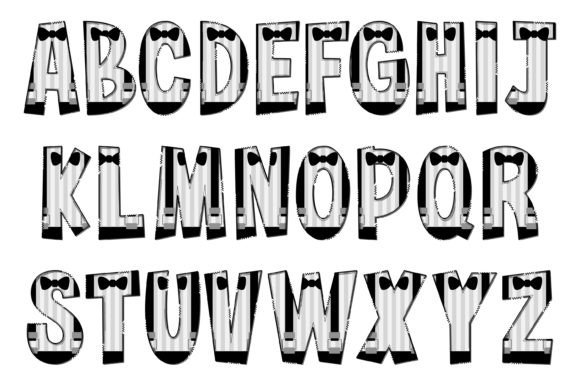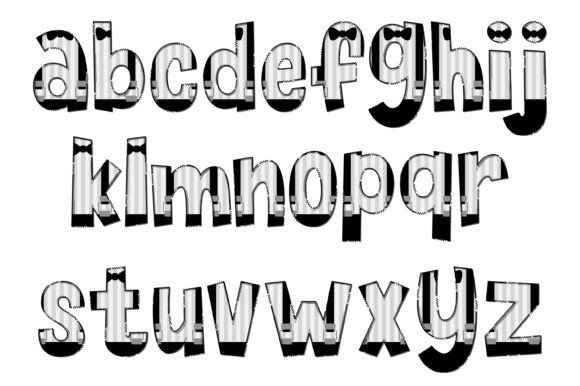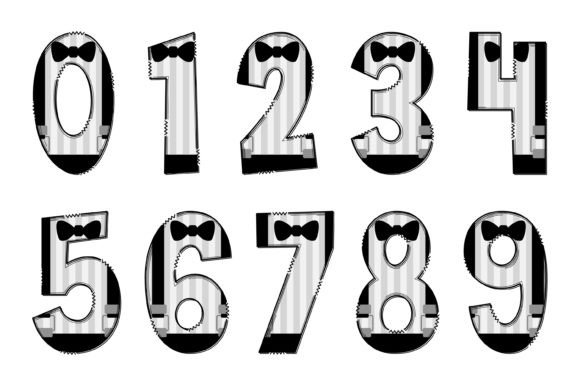
Introduction to Little Man Font
Do you remember the excitement of creating your first art project as a child? The thrill of picking out the perfect colors, the joy of watching your imagination come to life on paper, and the satisfaction of seeing your creation take shape? As a designer, you’re likely no stranger to that feeling, and you know how important it is to have the right tools to bring your creative vision to life. That’s where the Little Man Font comes in – a playful, artistic font that’s perfect for adding a touch of whimsy to your designs.
Whether you’re working on a children’s book, a poster, or a greeting card, the Little Man Font is a valuable resource that can help you convey a sense of fun and creativity. With its transparent background and high-quality design, this font is a must-have for any designer looking to add a little extra magic to their projects.
Key Features of Little Man Font
- High-quality design resource with a transparent background, making it perfect for creative projects that require a unique touch.
- Little Man Font is designed to be highly scalable, maintaining its crispness and clarity even at small font sizes.
- Its unique, playful design makes it an ideal choice for creative projects, such as children’s books, educational materials, and advertising campaigns.
Honest Review: Little Man Font
As a designer, I’m always on the lookout for unique and creative design resources to elevate my projects. The Little Man Font caught my eye with its playful and quirky vibe.
Here are some pros and cons I’ve found:
- ✨ High quality design: The Little Man Font has a crisp and clear appearance, making it perfect for any creative project.
- ✨ Transparent background: The font has a transparent background, allowing me to easily place it on any design without worrying about clutter.
- ✨ Unique design: The Little Man Font has a one-of-a-kind design that sets it apart from other fonts in my collection.
- ⚠️ Limited character set: Unfortunately, the Little Man Font only comes with a limited character set, which can be a problem for longer texts.
- ⚠️ Not ideal for professional use: While the font is great for creative projects, it may not be suitable for professional use due to its playful and informal nature.
Overall, I think the Little Man Font is a fantastic design resource for designers looking for a unique and creative font to add some personality to their projects.
Tips for Getting the Most Out of Little Man Font
Little Man Font is a versatile font that can be used in a variety of creative projects, including logos, graphics, and presentations. It’s also a great choice for designing children’s materials, such as books and educational resources.